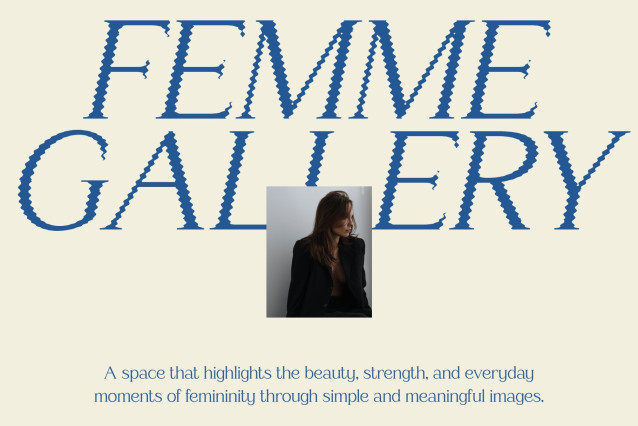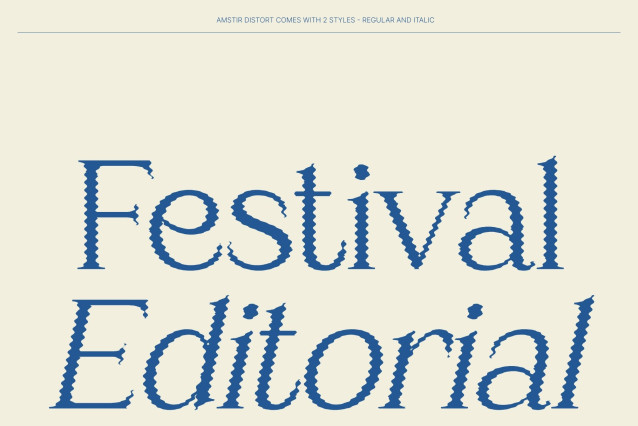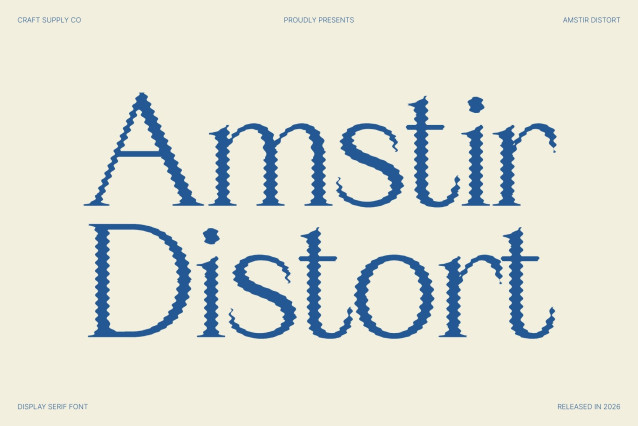
Amstir Distort – Classic Serif Font: Where Timeless Elegance Meets Fluid Distortion
Refined Traditional Forms with Modern Charm
This is a classic serif font that beautifully combines timeless elegance with a modern creative twist. Its refined serif structure and balanced proportions create a sophisticated visual identity filled with charm, versatility, and graceful character. Every letter feels polished and expressive, making the font perfect for creative projects that seek both classic beauty and contemporary style.
Distort Effect with Gentle Organic Motion
This font features fluid organic contours along the letter edges that create a subtle melting effect. This expressive detailing introduces movement, softness, and artistic visual depth while preserving the font’s elegant serif foundation. The result is a dynamic and immersive appearance that feels modern, stylish, and visually captivating.